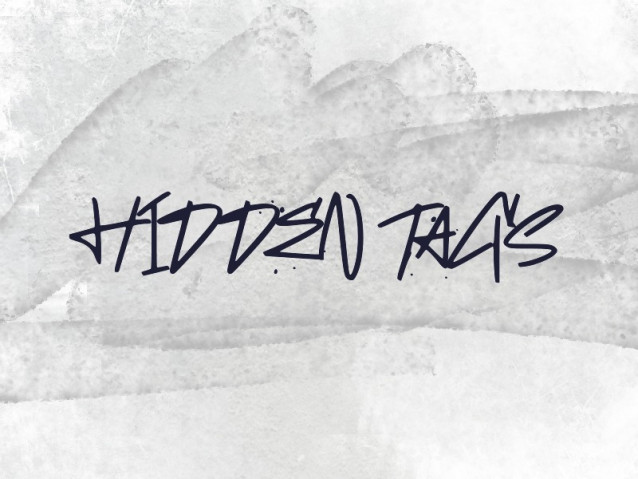
h Hidden Tags Font
h Hidden Tags Font, infuses a chic urban vibe with sleek monoline strokes, embodying the audacity of graffiti expressed in a minimalist style. The sleek, uninterrupted lines interweave modern aesthetic with an authentic graffiti feel. This font resonates sophistication, being the ideal choice for graphic street art, captivating posters, and standout branding. Whether you’re illustrating a powerful urban narrative or seeking a cutting-edge typographic element for creative ventures, “h Hidden Tags” enlivens your designs, granting them a contemporary uniqueness that ensures they demand attention.